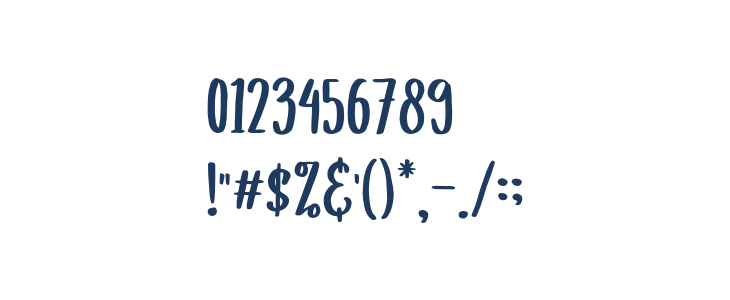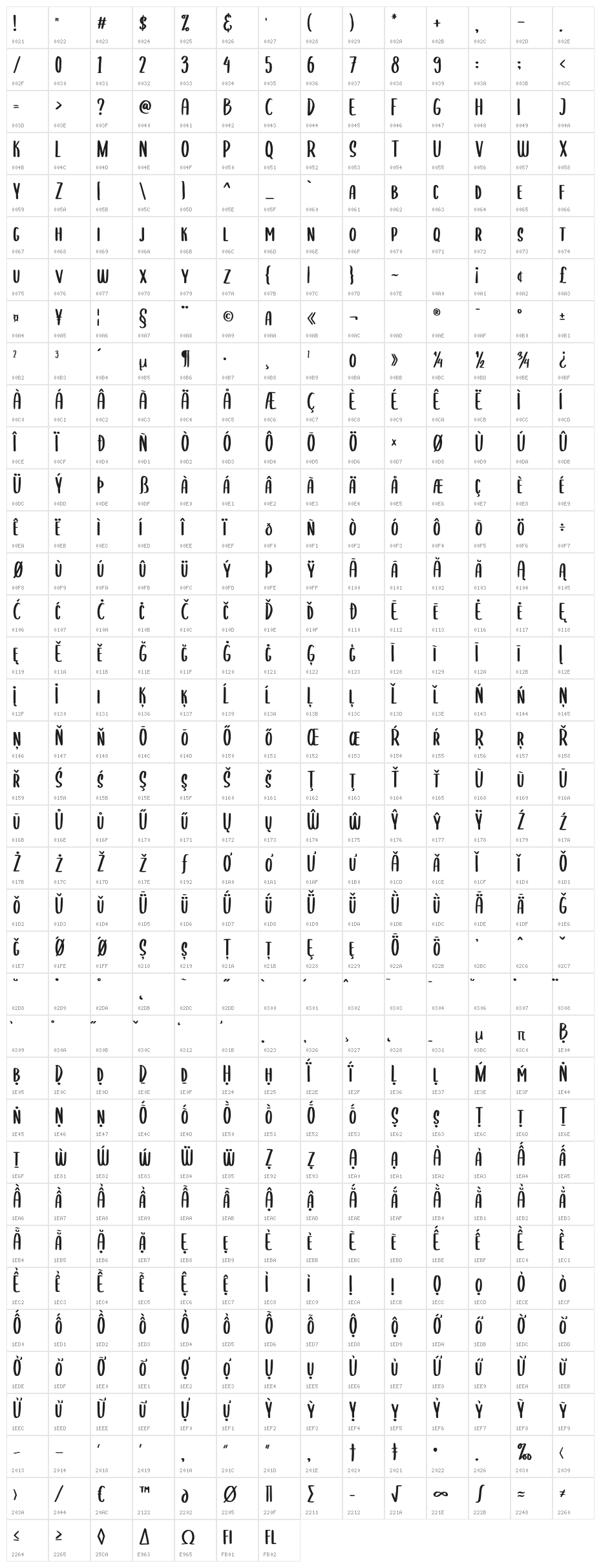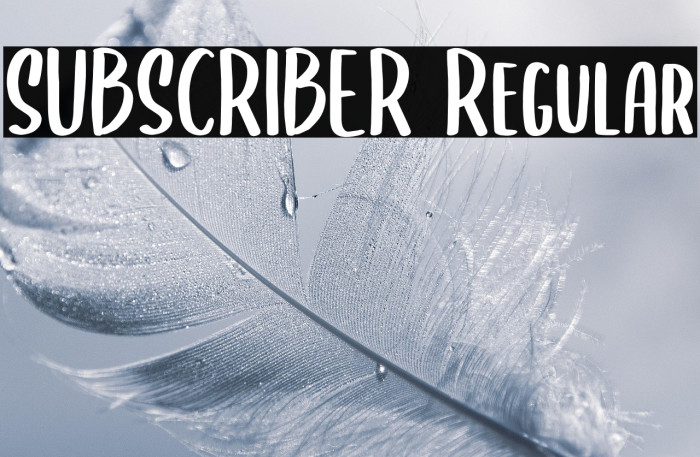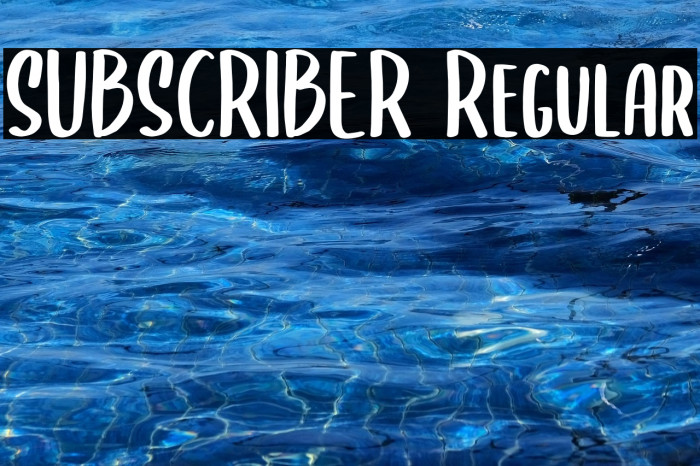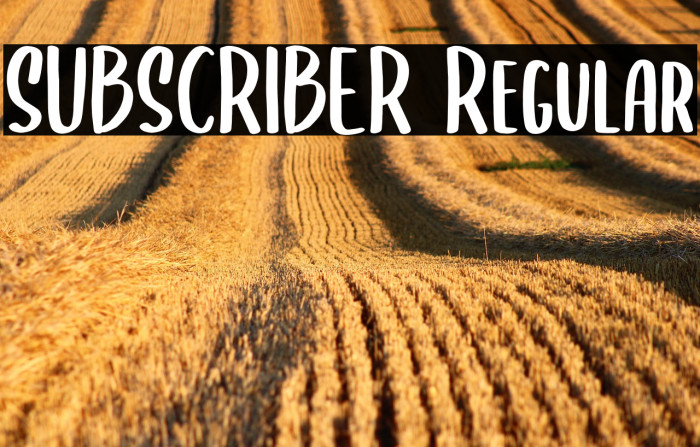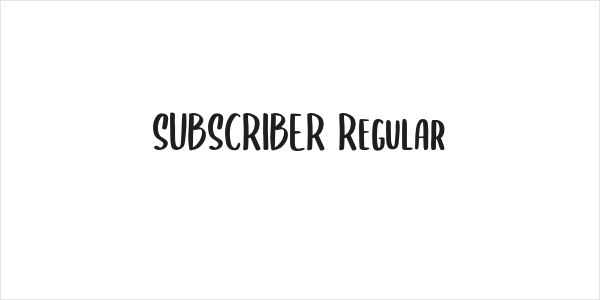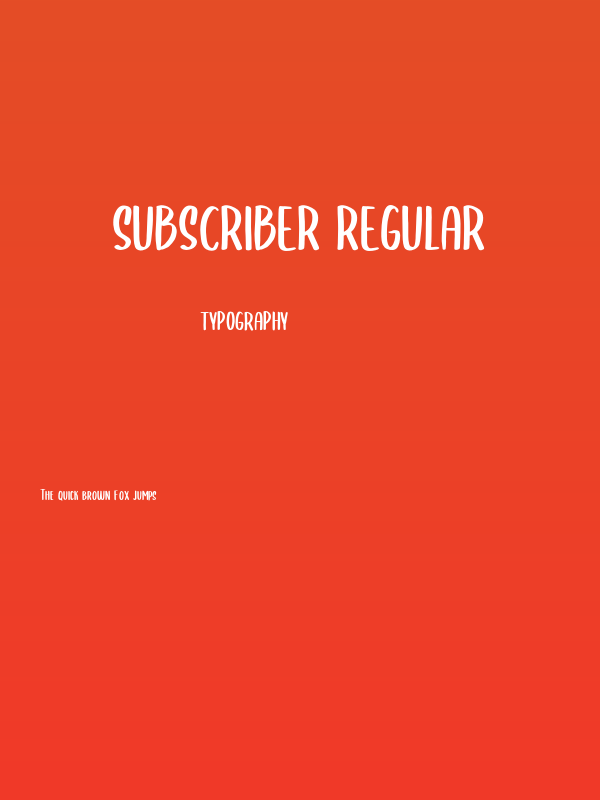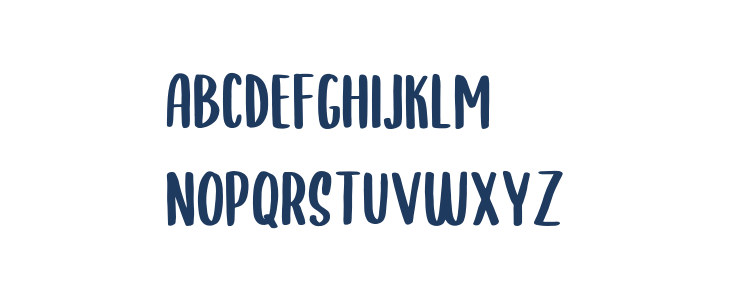
SUBSCRIBER Regular Font
SUBSCRIBER Regular Description
This font features a playful and bold style with a handwritten appearance. The characters are slightly condensed, giving it a compact look while maintaining readability. The strokes are consistent in thickness, providing a uniform and cohesive appearance. The uppercase and lowercase letters are well-balanced, with rounded edges that add a friendly and approachable feel. The numerals and special characters are designed to match the overall aesthetic, ensuring versatility across different uses. This font is suitable for projects that require a casual and informal touch, making it ideal for creative and artistic applications.